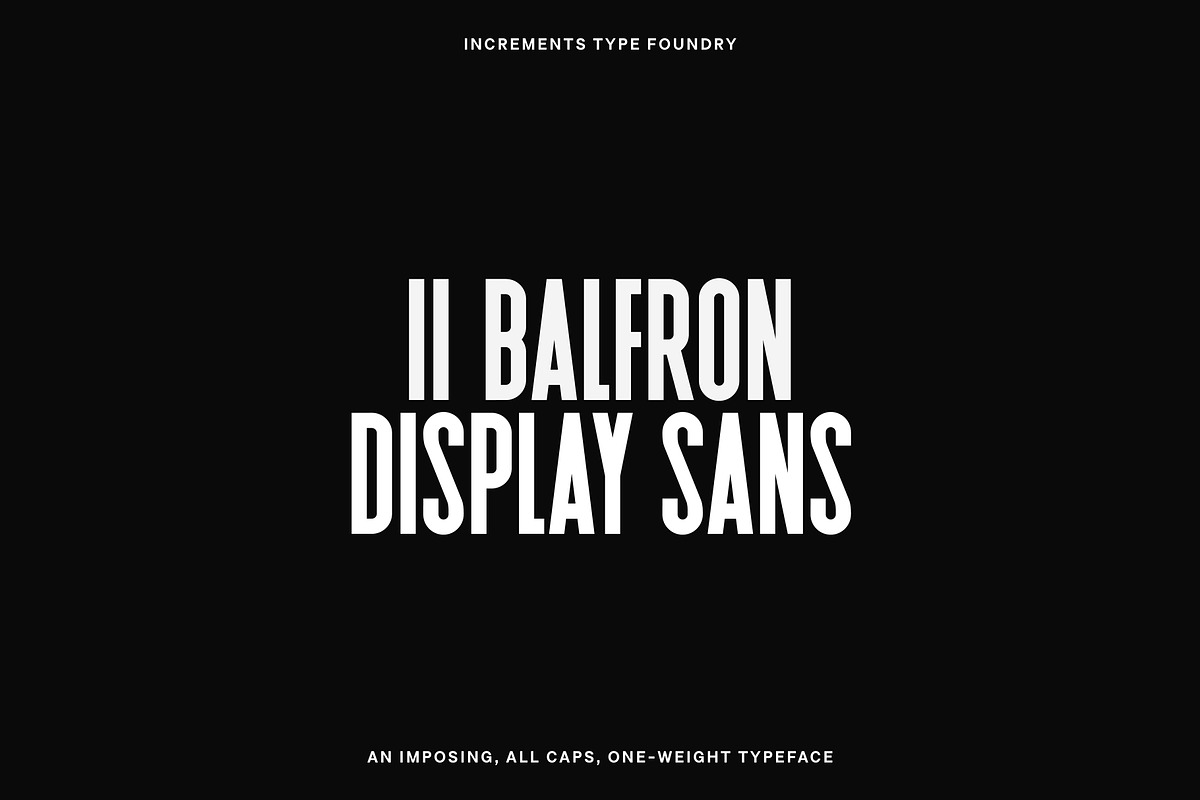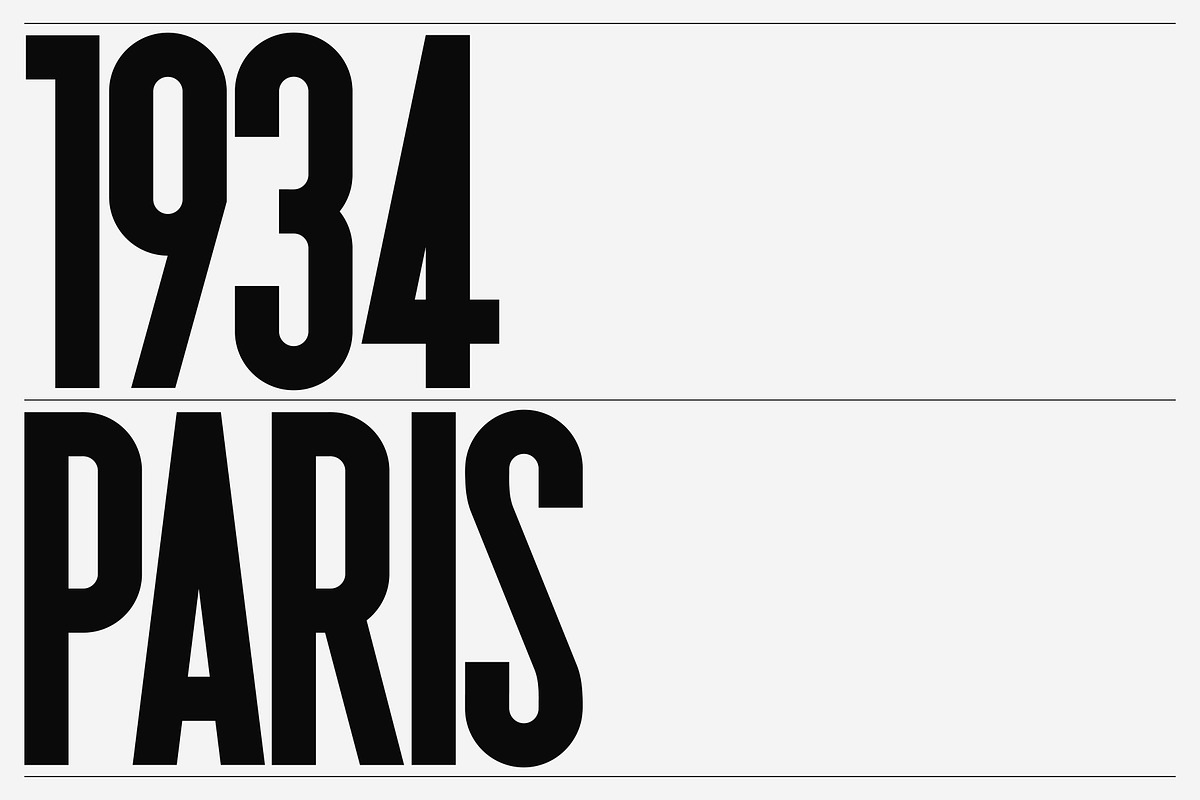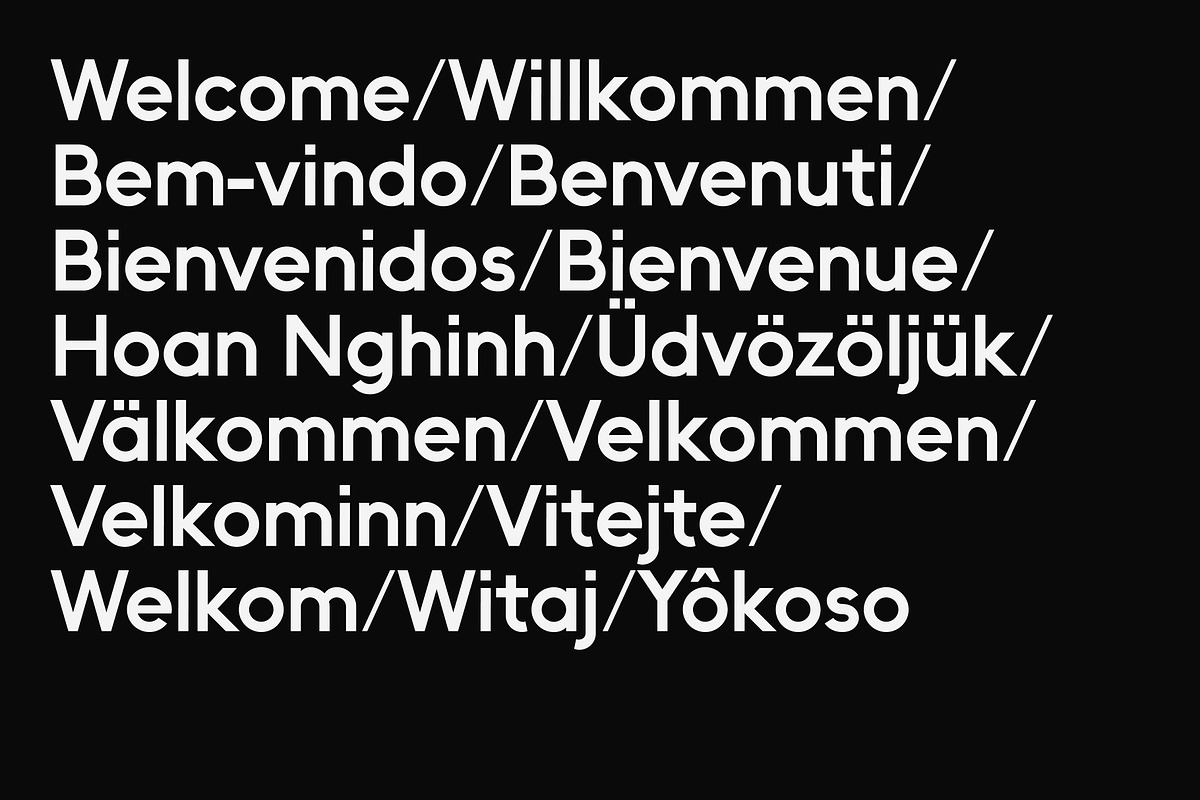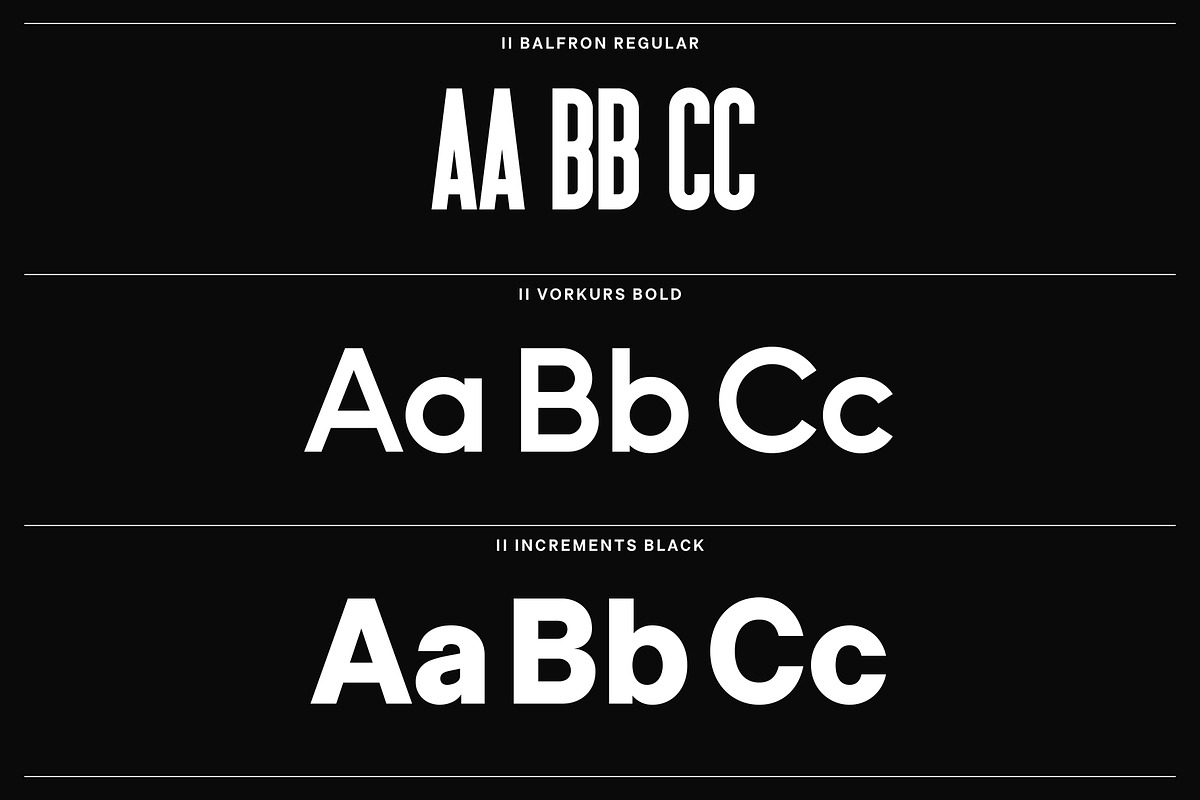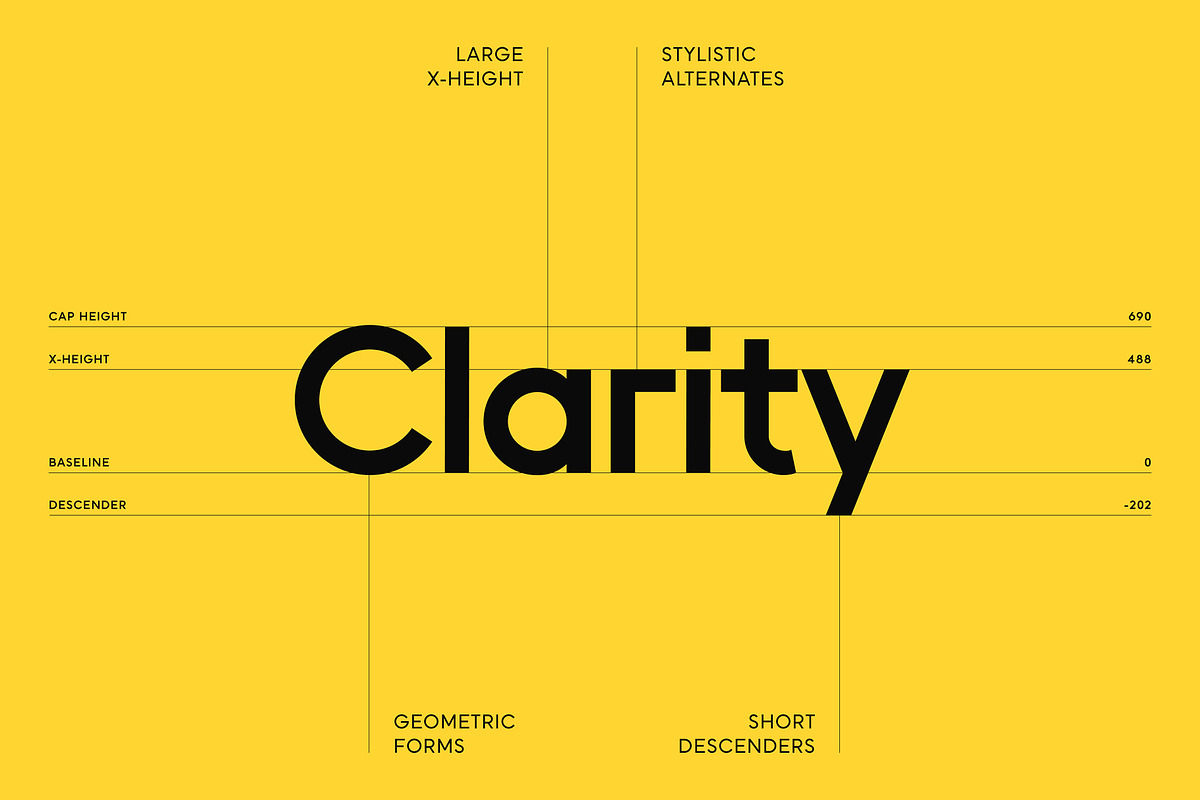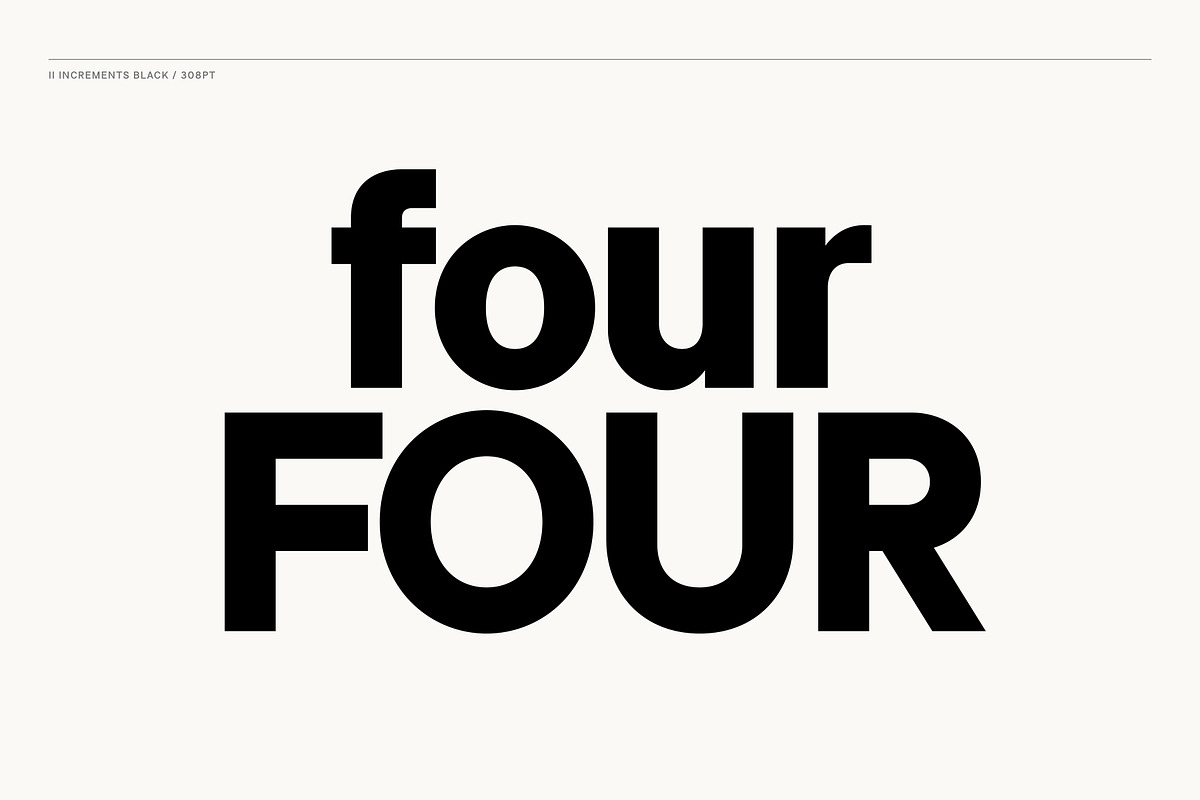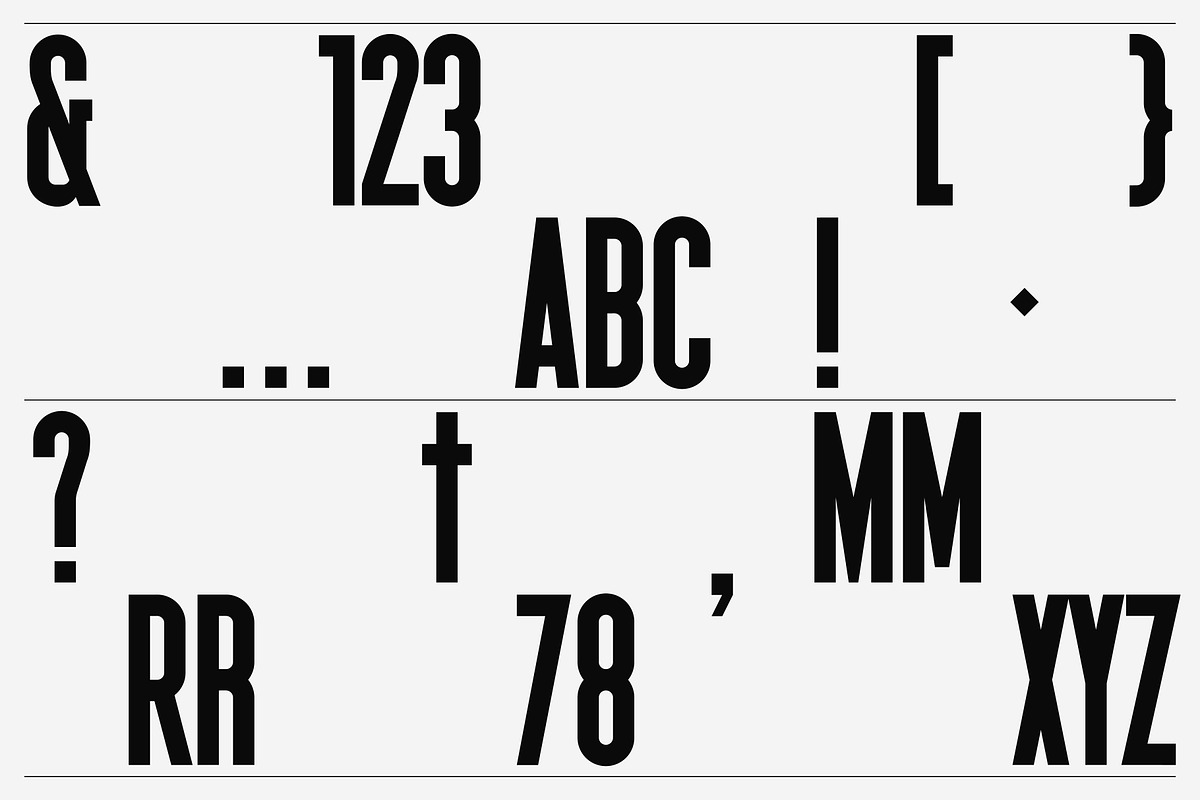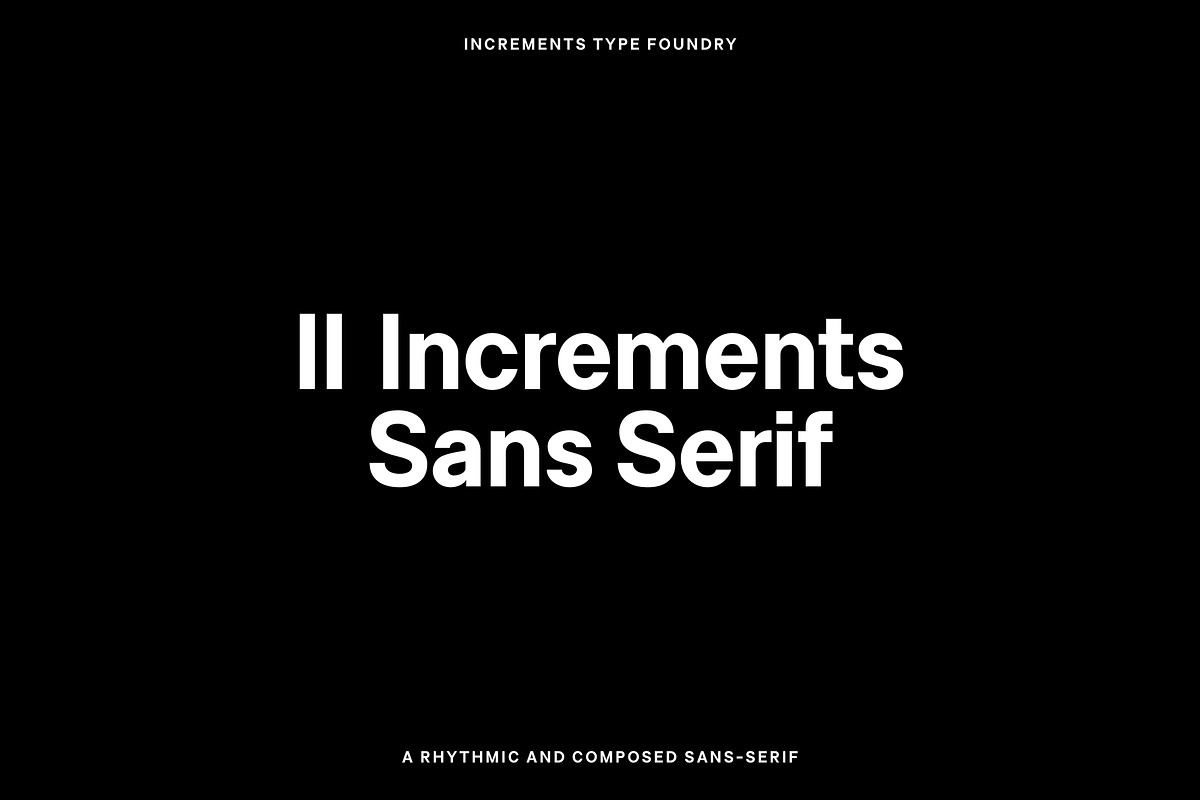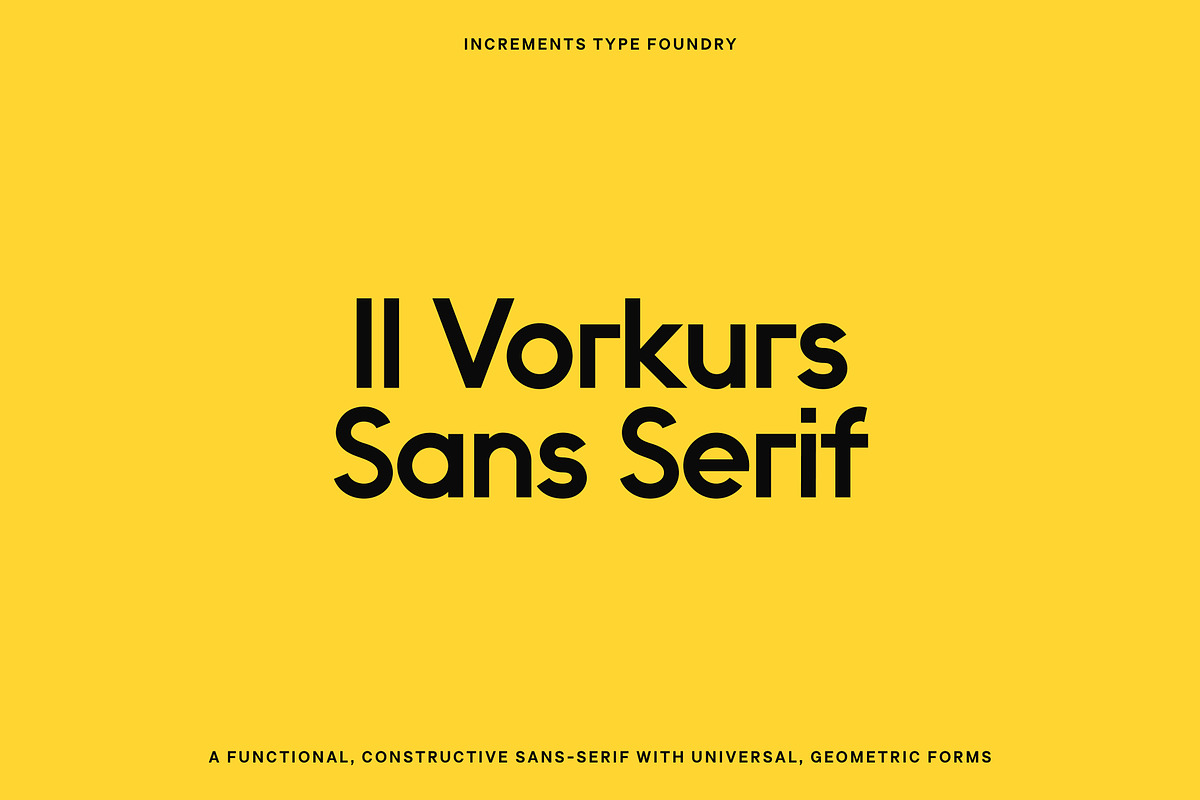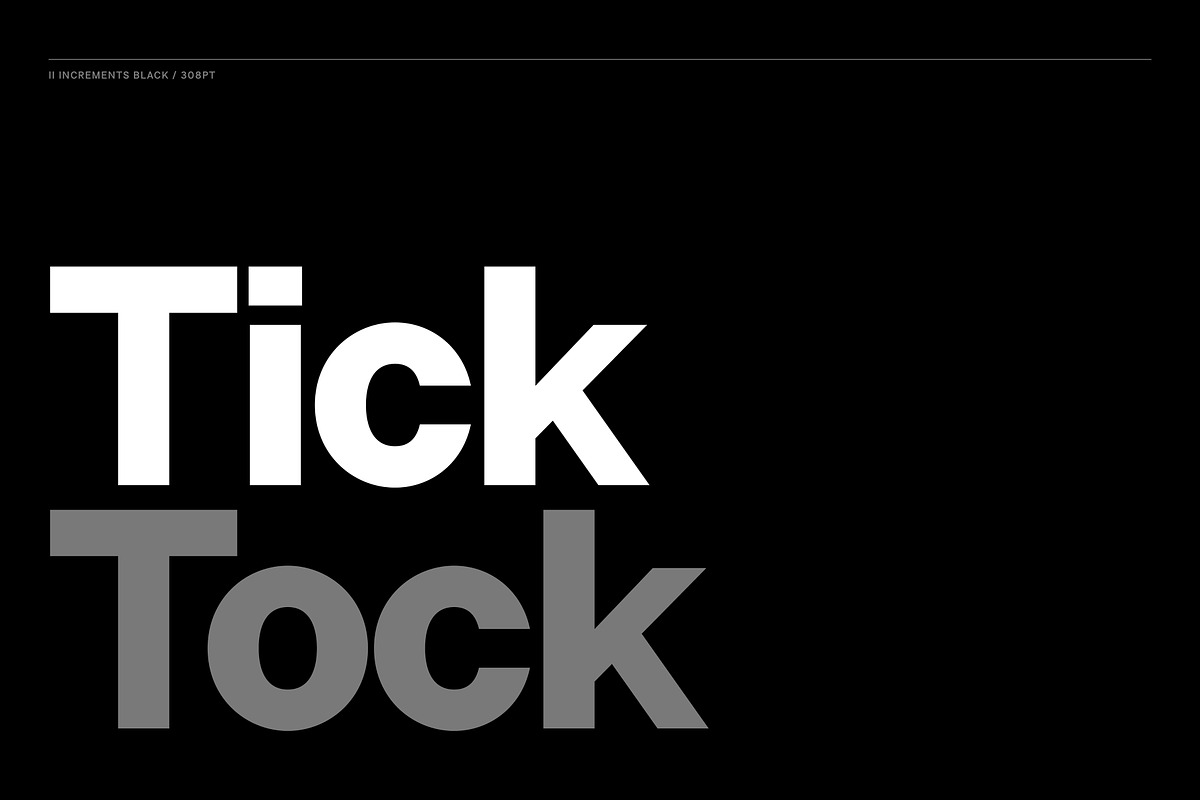
II Increments Foundry: 3 Font Bundle
An introduction pack to Increments Type Foundry at a discounted price. The bundle includes three font files, which are best used for bold impact in headlines or brand design.
Fonts included: • II Balfron Regular • II Vorkurs Bold • II Increments Black